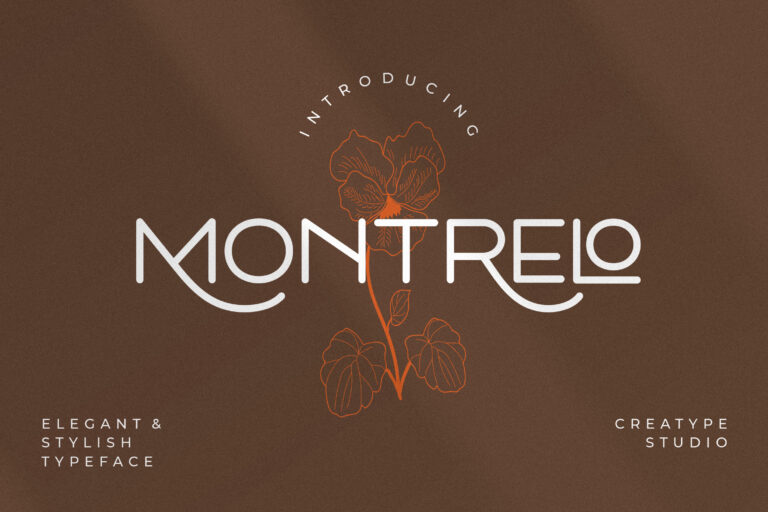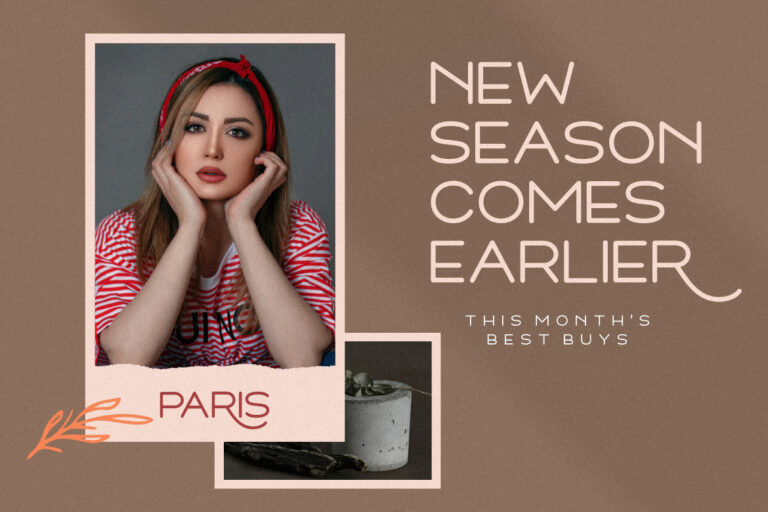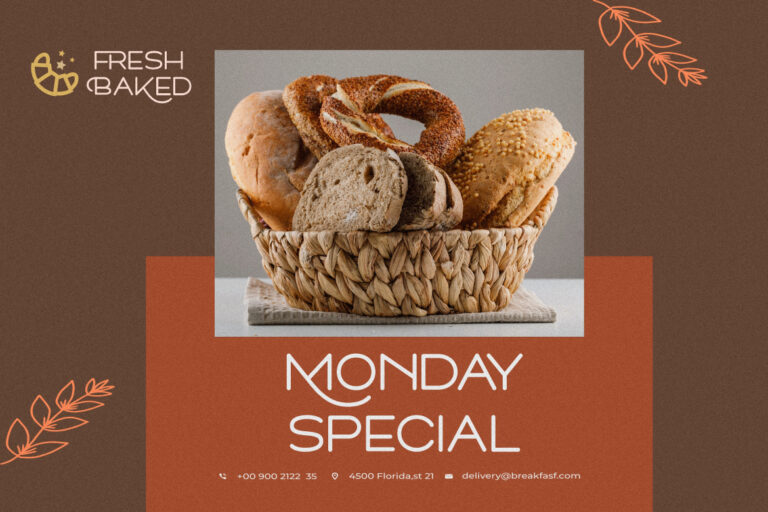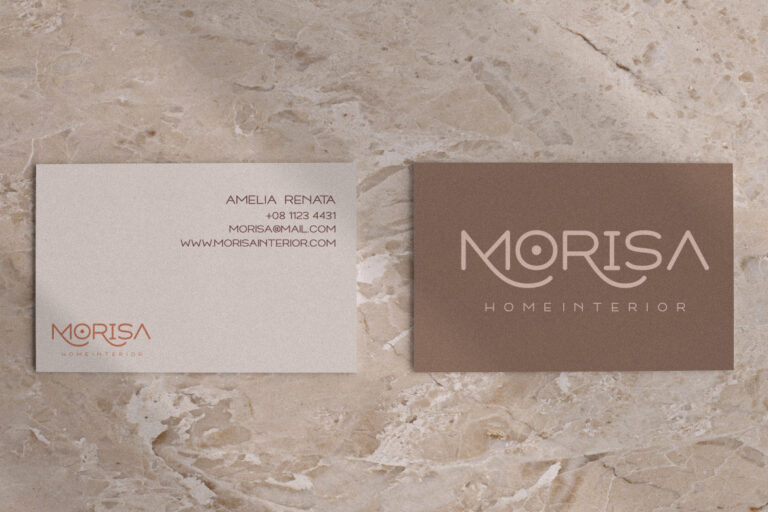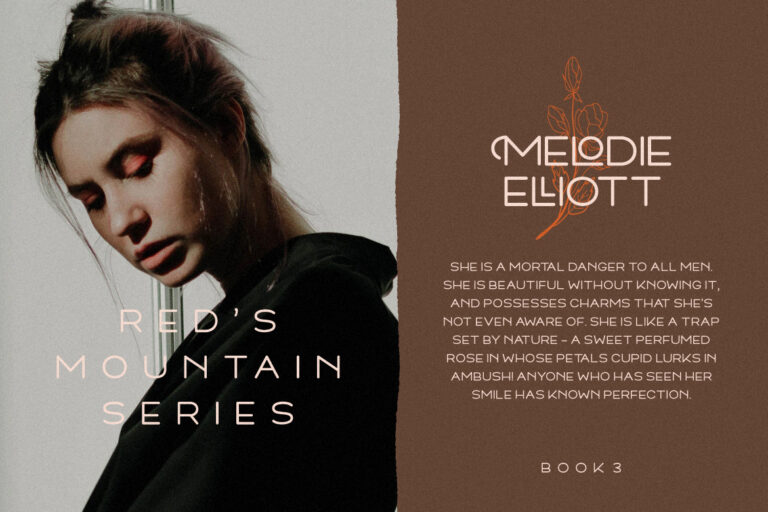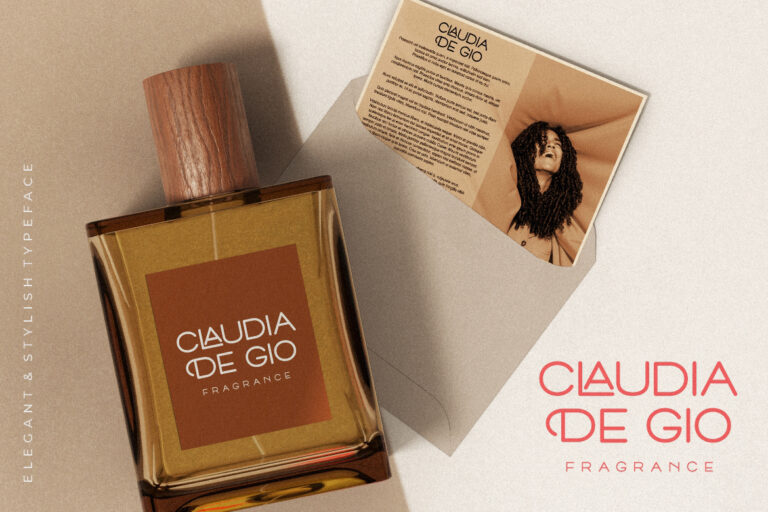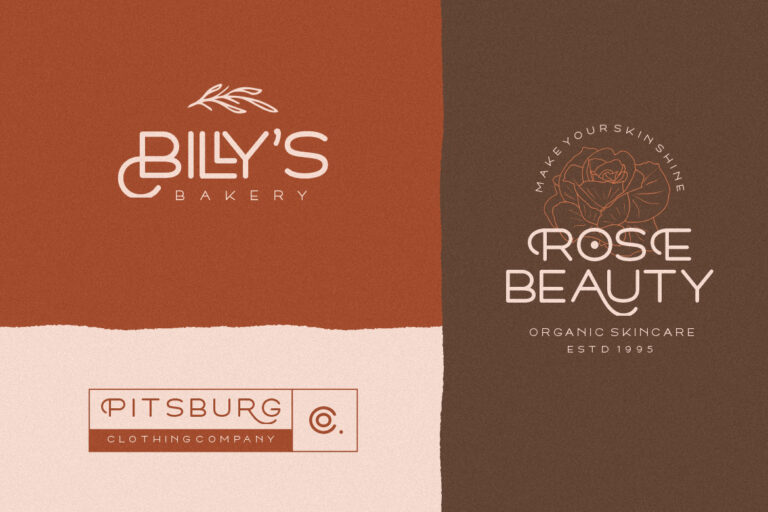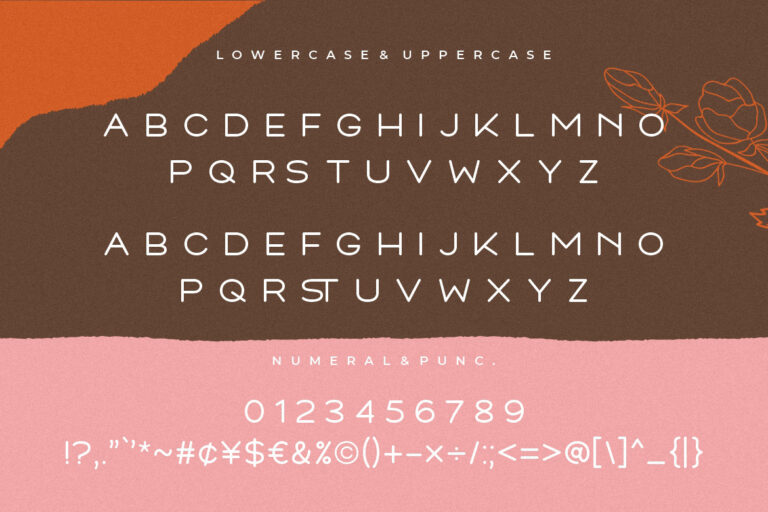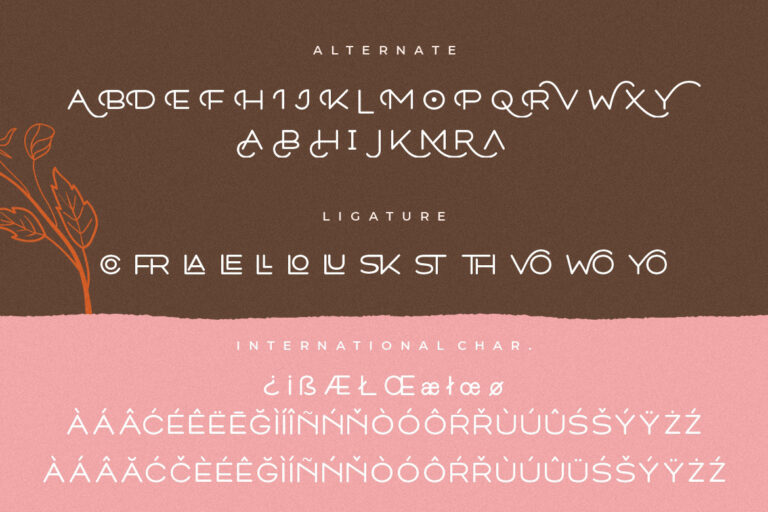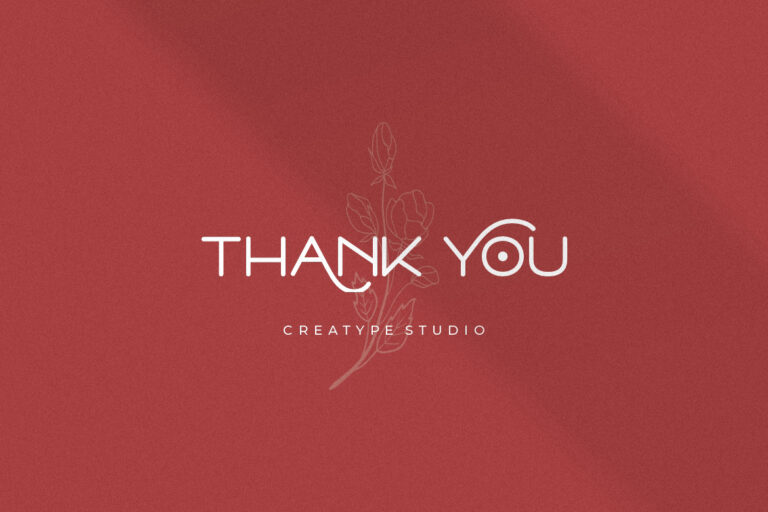
Montrelo a stylish modern sans serif font looks classy, elegant and sophisticated. The font very versatile that works great in large and small sizes.
Montrelo would perfect for photography, watermark, social media posts, advertisements, logos & branding, invitation, product designs, label, stationery, wedding designs, product packaging, special events or anything that need handwriting taste.
Montrelo Elegant Sans Serif